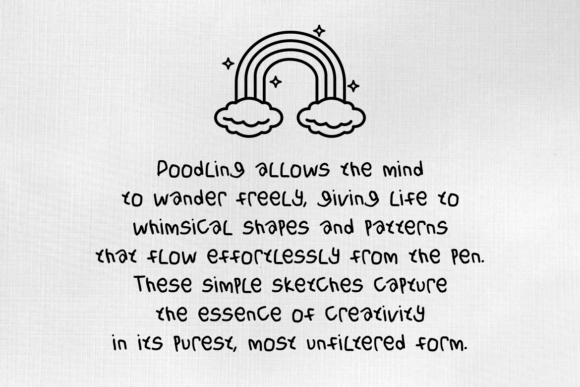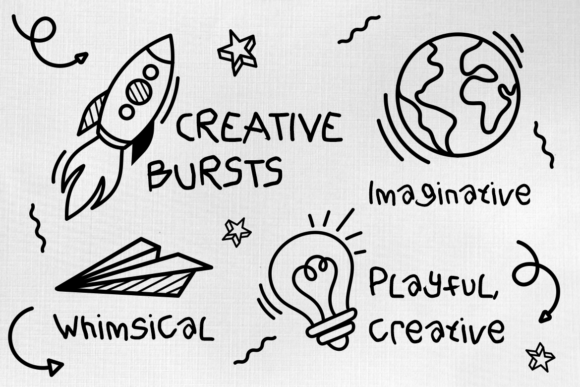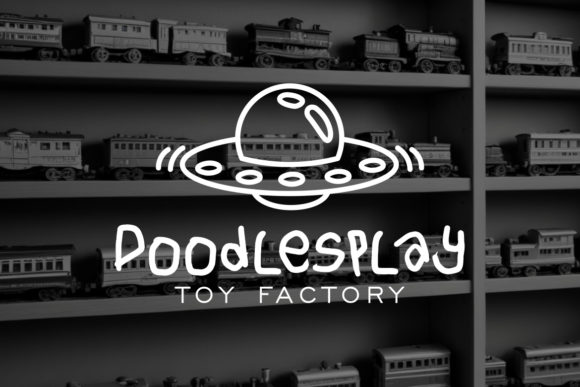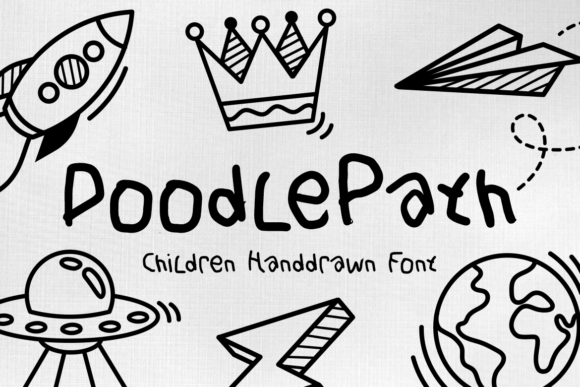
Introduction to Doodle Path Font
Introducing DoodlePath – Children Handdrawn Font, a delightful typeface that captures the essence of childhood creativity and imagination.
This playful font features whimsical doodles and bold, hand-drawn lines that mimic the joyful scribbles of a child’s artwork Each character in DoodlePath is designed with care to convey warmth and playfulness, making it perfect for injecting personality into your projects.
Key Features of Doodle Path Font
Why Choose Doodle Path Font?